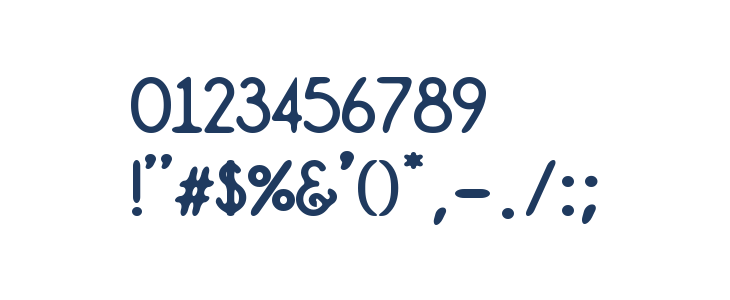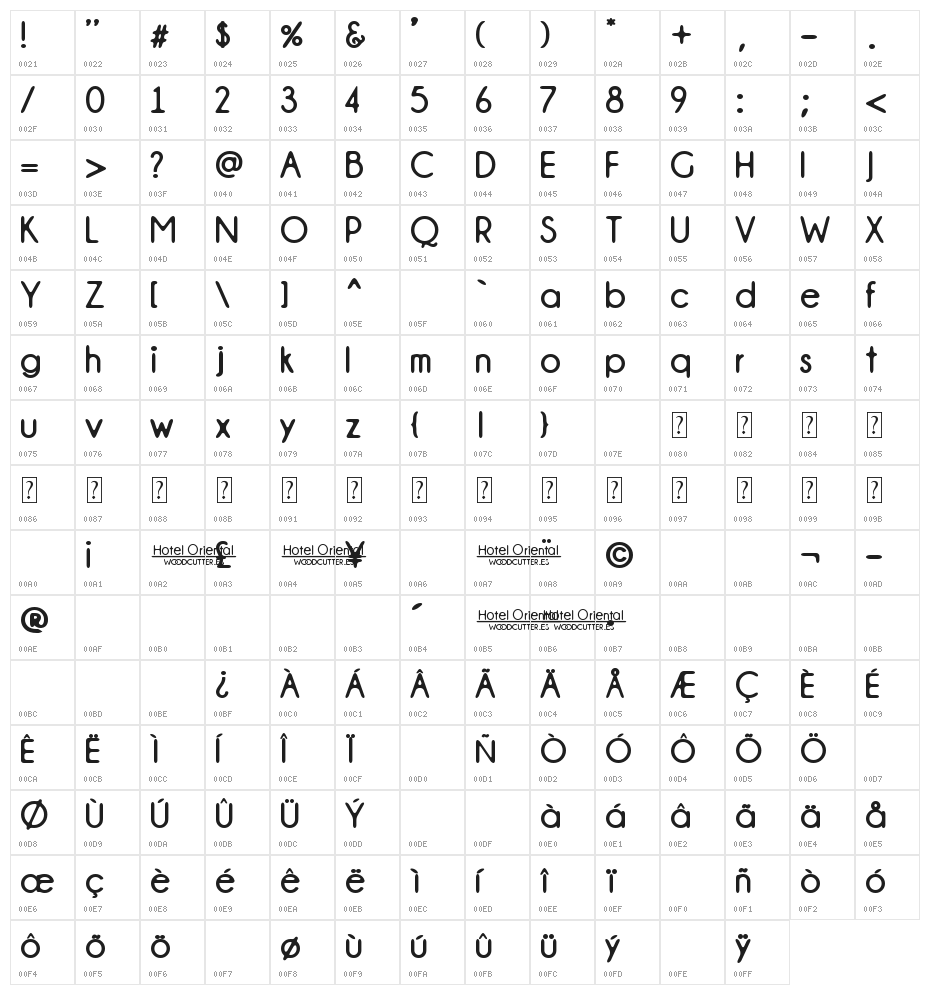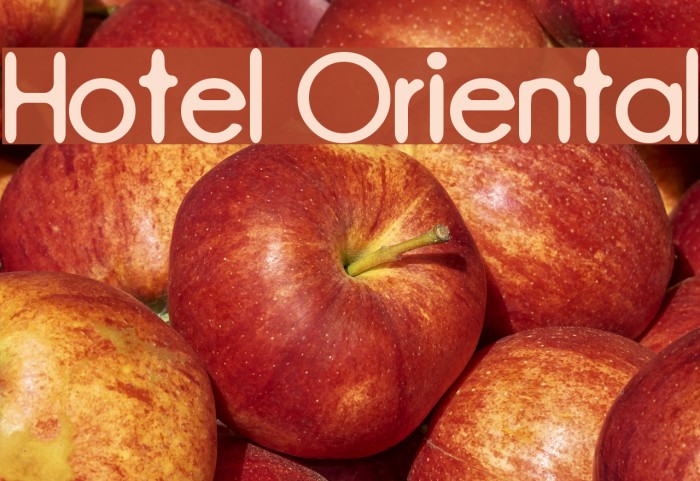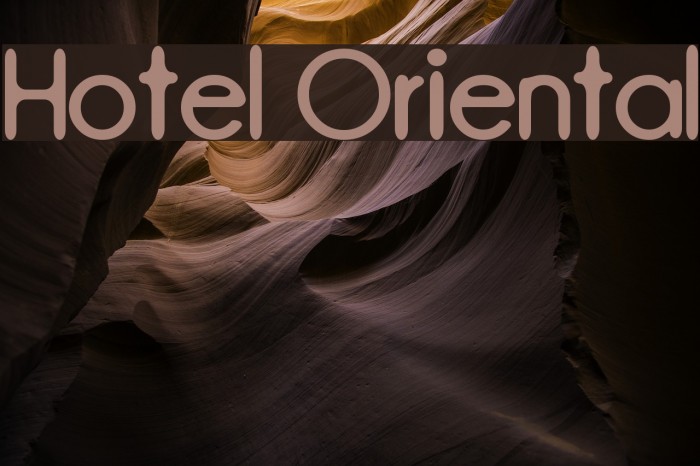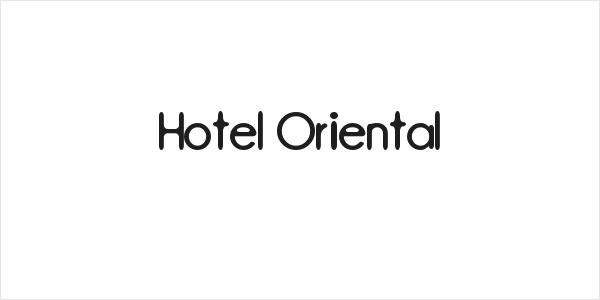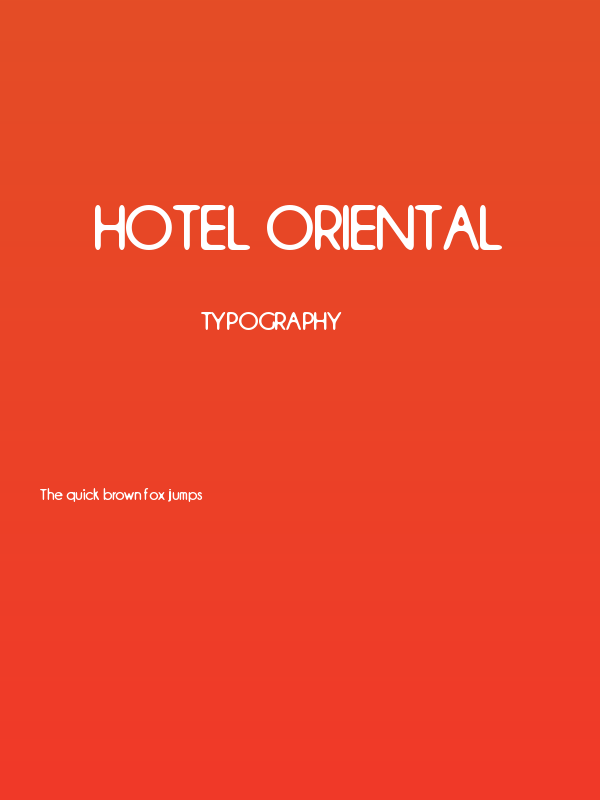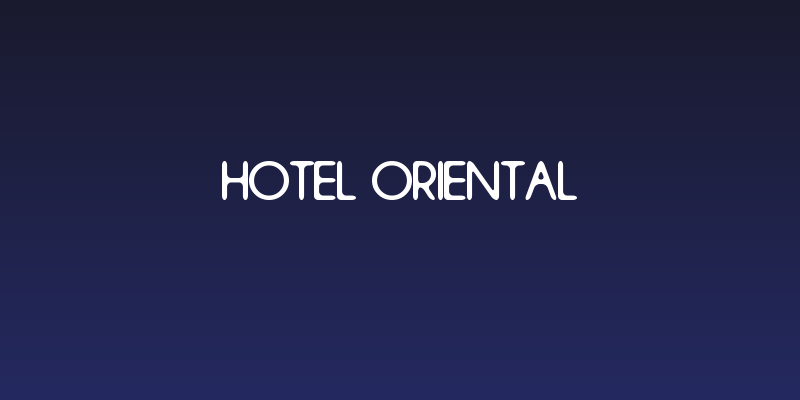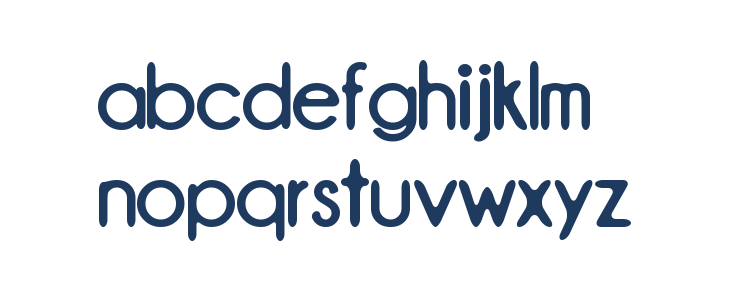
Hotel Oriental Font
Hotel Oriental Description
This font features a playful and rounded style, characterized by its smooth curves and consistent stroke width. The letters have a friendly and approachable appearance, with a slight retro feel. The uppercase and lowercase characters maintain a uniformity that enhances readability, while the numerals and special characters complement the overall design. The font's rounded edges and balanced proportions make it suitable for a variety of creative projects.
| Overall Style | Retro, Playful |